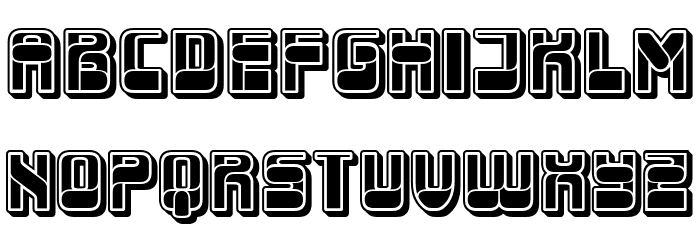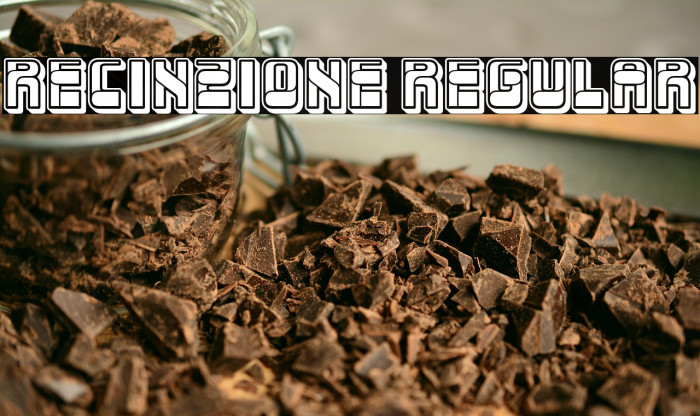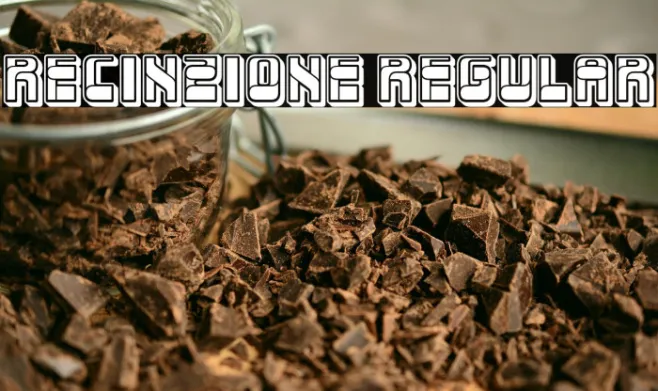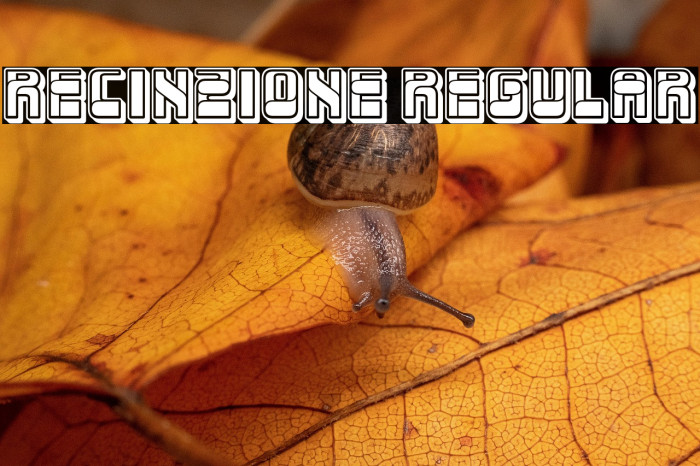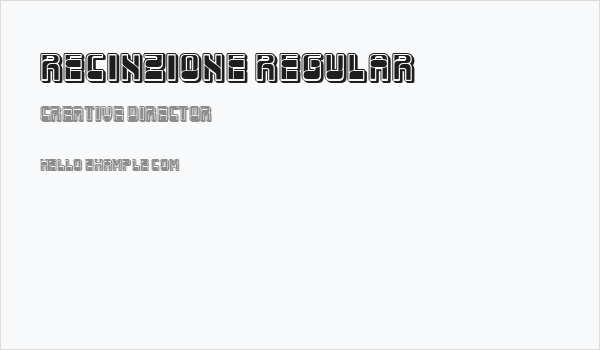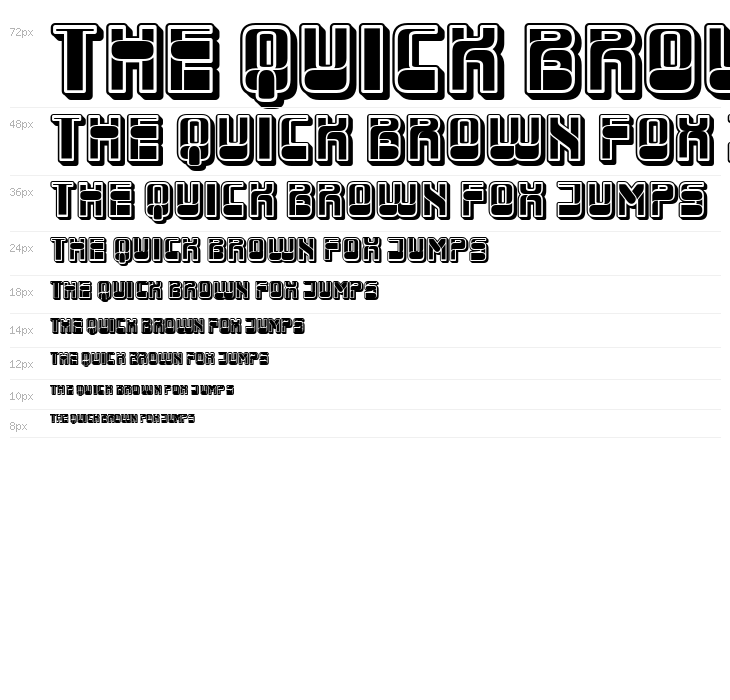
Recinzione Regular Font
Recinzione Regular Description
This font features a bold, geometric design with a distinct three-dimensional effect. Each character is outlined with a thick border, creating a layered appearance that adds depth and dimension. The style is reminiscent of retro and futuristic aesthetics, combining blocky shapes with smooth curves. The uppercase letters are uniform in height, while the lowercase letters maintain a consistent style, offering a cohesive look across all characters. The numbers and special characters follow the same design principles, ensuring a harmonious visual identity. This font is ideal for projects that require a strong, eye-catching display typeface.
| Overall Style | Retro-Futuristic |
| Proposed Projects | Ideal for posters, logos, video game graphics, and any project needing a bold, standout typeface. |